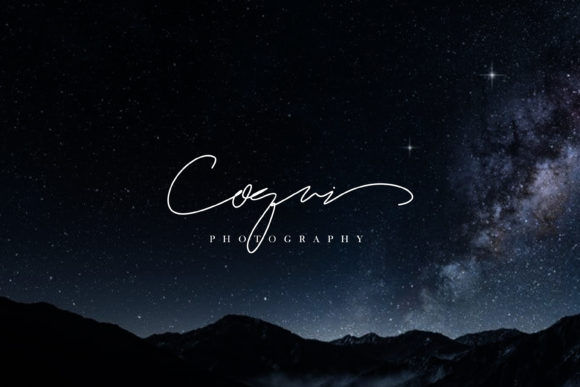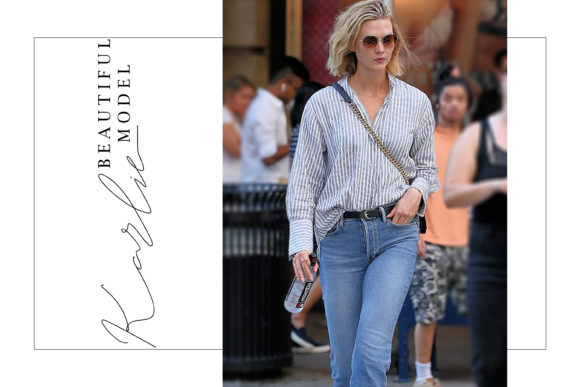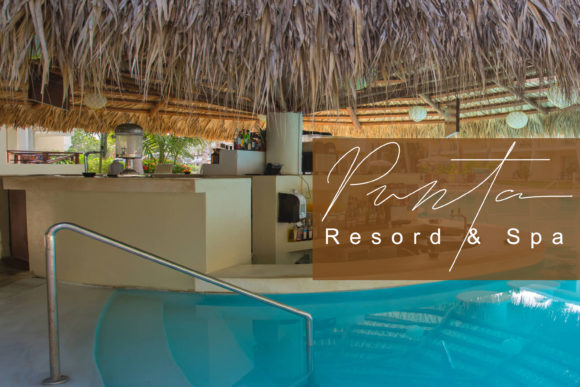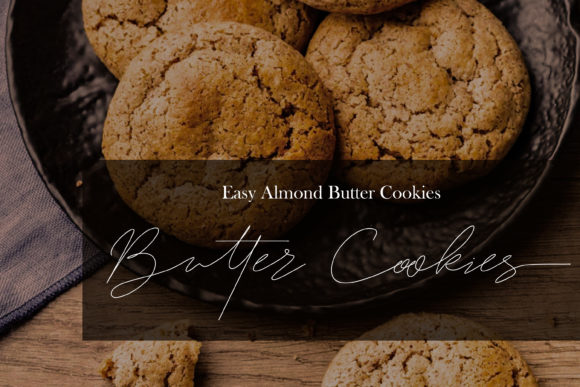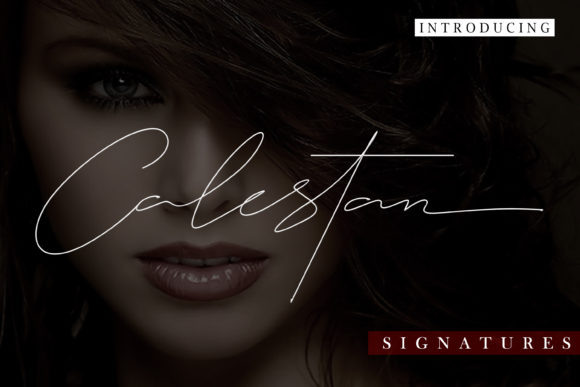
The Magic of Calestan Font: Elevate Your Designs with Elegance
I’ll never forget the time I was working on a wedding invitation project, and my client asked for a font that would make the invitation look like a luxurious, high-end experience. I scoured the internet, tried countless fonts, but nothing seemed quite right. That was until I stumbled upon Calestan Font. It was like the design gods had finally answered my prayers! 💫
Calestan is a beautiful and elegant script font that will turn any design idea into a true piece of art. Its flowing lines, intricate details, and classic charm make it perfect for a wide range of creative projects. In this article, I’ll share my experience with Calestan, its features, and how to make the most of it in your designs.
An Honest Review of Calestan Font
What I Love About Calestan ✨
• 💫 Elegant and sophisticated: Calestan adds a touch of luxury to any design.
• ✅ Highly versatile: Suitable for wedding invitations, branding, packaging, and more.
• 🎨 Beautifully crafted: Intricate details and flowing lines make it a true work of art.
• 🤝 Easy to read: Despite its ornate nature, Calestan remains surprisingly legible.
While Calestan is an amazing font, it’s not without its quirks. For instance:
• 🤔 It can be a bit over-the-top for very simple or minimalist designs.
• ⚠️ Some characters may require manual kerning for optimal spacing.
The Backstory of Calestan Font
Calestan was designed by a team of typographers who wanted to create a font that would evoke the elegance and sophistication of classic calligraphy. Inspired by ancient manuscripts and elegant wedding invitations, they poured their hearts into crafting a font that would make any design shine.
Q: What type of projects is Calestan best suited for?
A: Calestan is perfect for wedding invitations, luxury branding, packaging, and any project that requires an elegant, sophisticated touch.
Q: Does Calestan support OpenType features?
A: Yes, Calestan supports OpenType features like ligatures, stylistic alternates, and glyphs, allowing you to add more creativity to your designs.
Q: Is Calestan easy to read?
A: Despite its ornate nature, Calestan is surprisingly legible, making it suitable for body text and headlines alike.